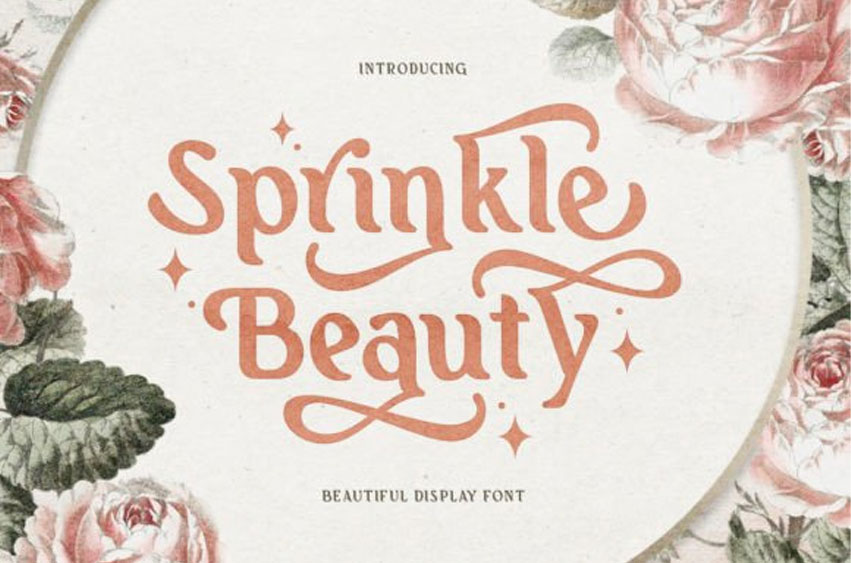
Sprinkle Beauty Font is a beautiful and bold serif font. With stunning alternatives, you can make your project more appealing and attractive.
You can use this font for many purposes, such as wedding invitations, quotes, branding, and logos. This font also supports multiple languages!